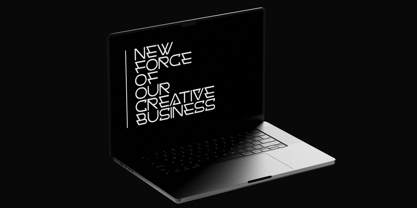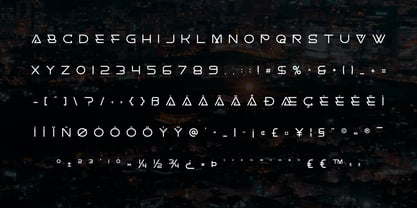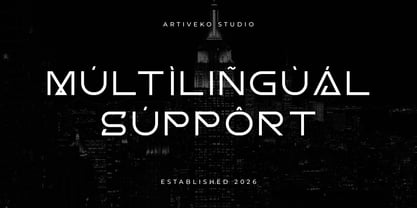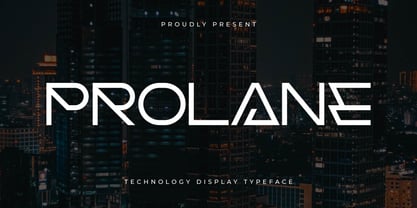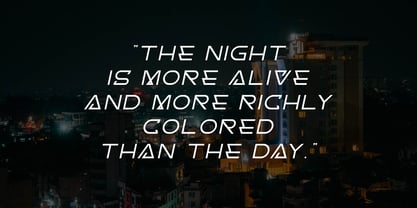
Prolane
La familia tipográfica Prolane fue diseñada por Iwan Alwan y publicada por Artiveko. Prolane contiene 2 estilos y opciones de paquete familiar. Más información sobre esta familia
Prolane is a cutting-edge geometric technology display font that embodies precision, innovation, and modern digital aesthetics. Featuring clean geometric forms, balanced proportions, and sharp contemporary details, Prolane establishes a bold visual identity perfect for technology-driven brands and futuristic design projects. This font is ideal for tech startups, AI platforms, software companies, gaming brands, fintech, UI/UX interfaces, websites, dashboards, and various digital products. Prolane seamlessly combines excellent readability with a distinctive futuristic personality, making it versatile for logos, headlines, posters, and comprehensive branding systems. Whether you're crafting a next-generation visual identity or designing digital experiences inspired by tomorrow's technology, Prolane strikes the perfect balance between modern minimalism and technical precision. Prolane is not just a font—it's a geometric typeface meticulously engineered for the future of technology and innovation.
Artiveko is a font design team based in Indonesia, comprised of several talented font designers who commenced their careers in the font design industry in 2020. With a dedicated focus on crafting fonts, the team members bring their collective expertise and passion to every project they undertake. Situated in Indonesia, Artiveko draws inspiration from the vibrant cultural landscape of the region, infusing their creations with unique flavors and aesthetics.The team's font collection encompasses a diverse range of styles, including serif, sans serif, handwritten, and script typefaces. Each typeface is meticulously crafted to meet the demands of modern design while offering versatility and functionality across various applications. Whether it's the classic elegance of serif fonts, the contemporary appeal of sans serif designs, the personal touch of handwritten scripts, or the expressive flourishes of script fonts, Artiveko ensures that every font reflects their dedication to quality and innovation.Artiveko's fonts have garnered recognition and acclaim, with their works being featured on prominent social media platforms like Creative Market. Through these platforms, the team has been able to connect with a global audience of designers and typographers, further amplifying their reach and influence in the industry. Their fonts are celebrated for their impeccable craftsmanship, attention to detail, and ability to elevate design projects with style and sophistication.As Artiveko continues to evolve and expand its font collection, the team remains committed to pushing the boundaries of typography and setting new standards of excellence. With a relentless focus on creativity, innovation, and collaboration, Artiveko strives to inspire and empower designers around the world with their distinctive and versatile font designs.